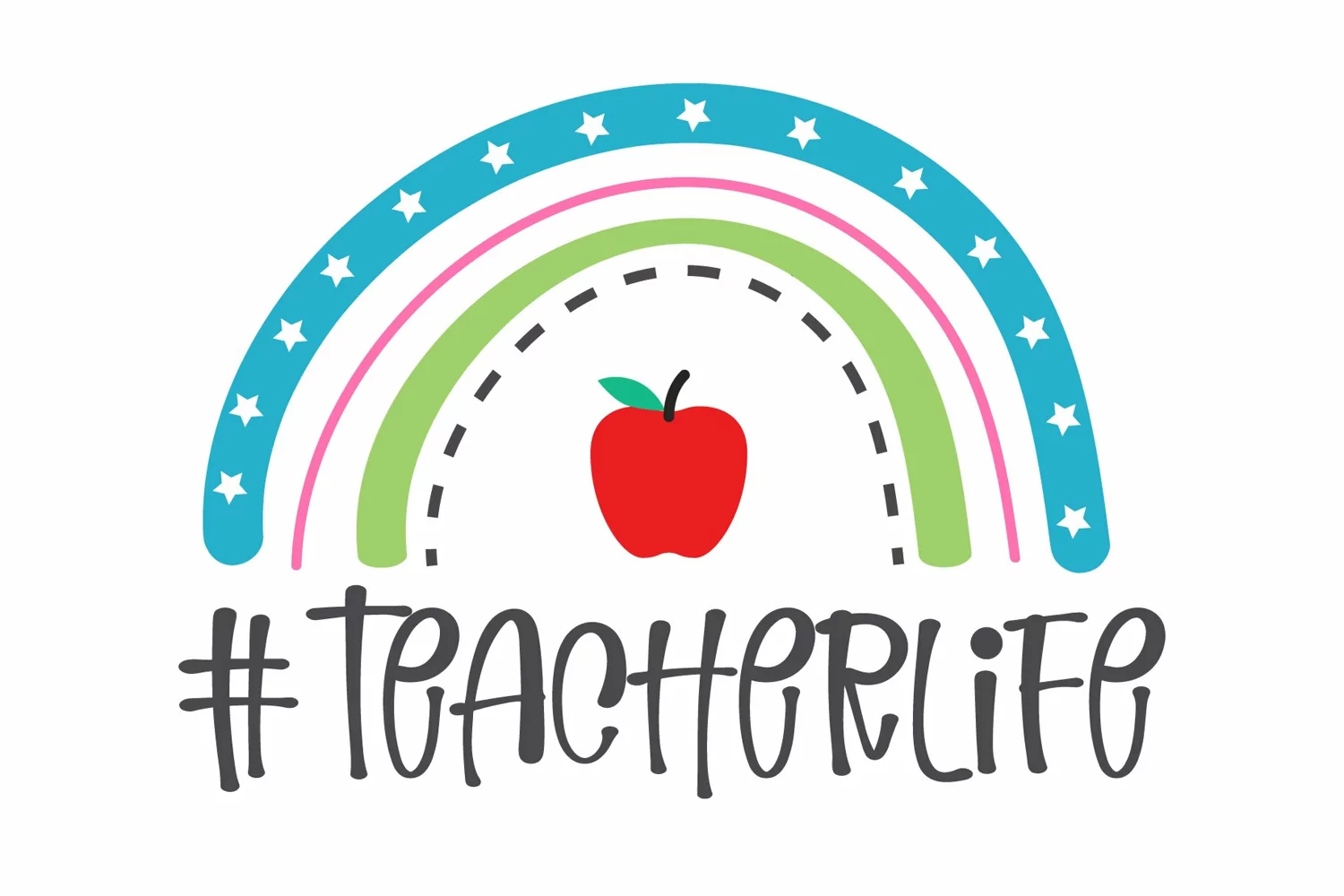
Jellybean is an informal and relaxed handwritten font. Whatever the topic, this font will be a wonderful asset to your font library, as it has the potential to enhance any creation.